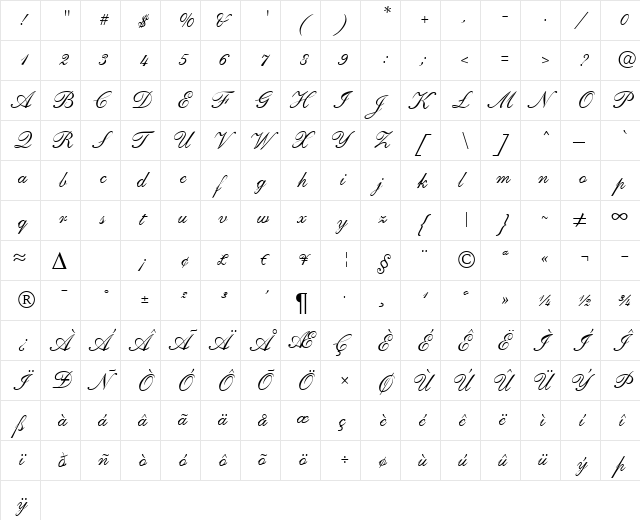
Script-S721-One Regular
Design Context for Script-S721-One Typeface
Script-S721-One flows with the natural rhythm of handwritten lettering, making it ideal for designs that call for warmth and personal expression.
Font Pairing: Combine Script-S721-One with a simple geometric sans for maximum contrast — the tension between flowing curves and clean structure is a classic typographic pairing.
Pro Tip: Use Script-S721-One for short runs of text — names, titles, or taglines. Extended body copy in script faces tires the eye quickly.